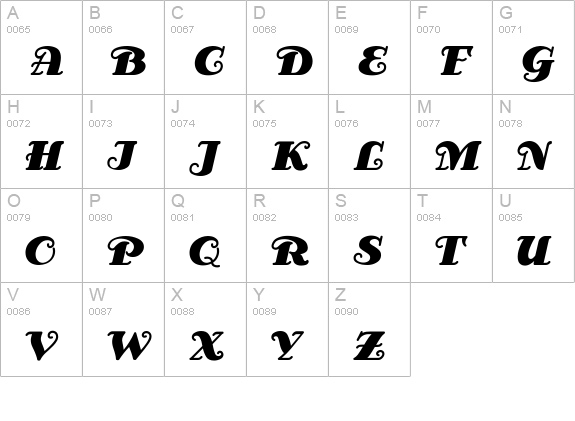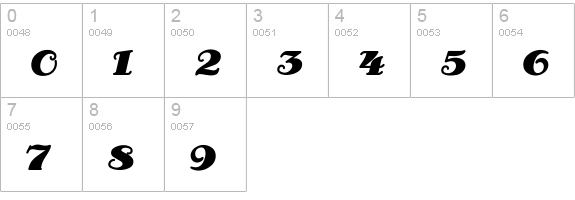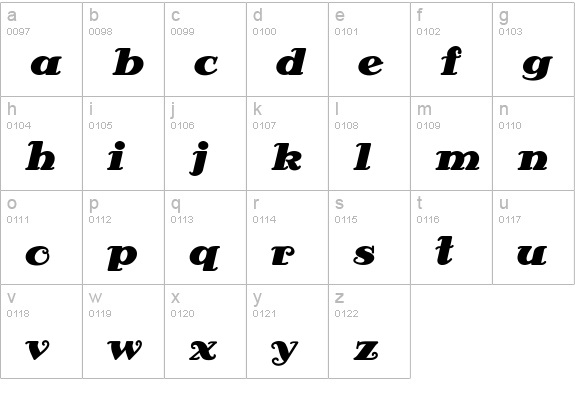
AntsyPants Font Details
AntsyPants font is a playful and whimsical typeface that is perfect for adding a fun and energetic touch to your designs. With its quirky and irregular letterforms, this font exudes a sense of excitement and spontaneity. Whether you're working on a project for children's books, party invitations, or any creative endeavor that calls for a lighthearted feel, AntsyPants font is sure to bring a smile to your audience. The best part? AntsyPants font is available for free download at FontsMarket.com. You can easily access this delightful font and incorporate it into your design projects without any cost. Don't miss out on the opportunity to add a touch of playfulness to your designs with the charming AntsyPants font - get your free download today!